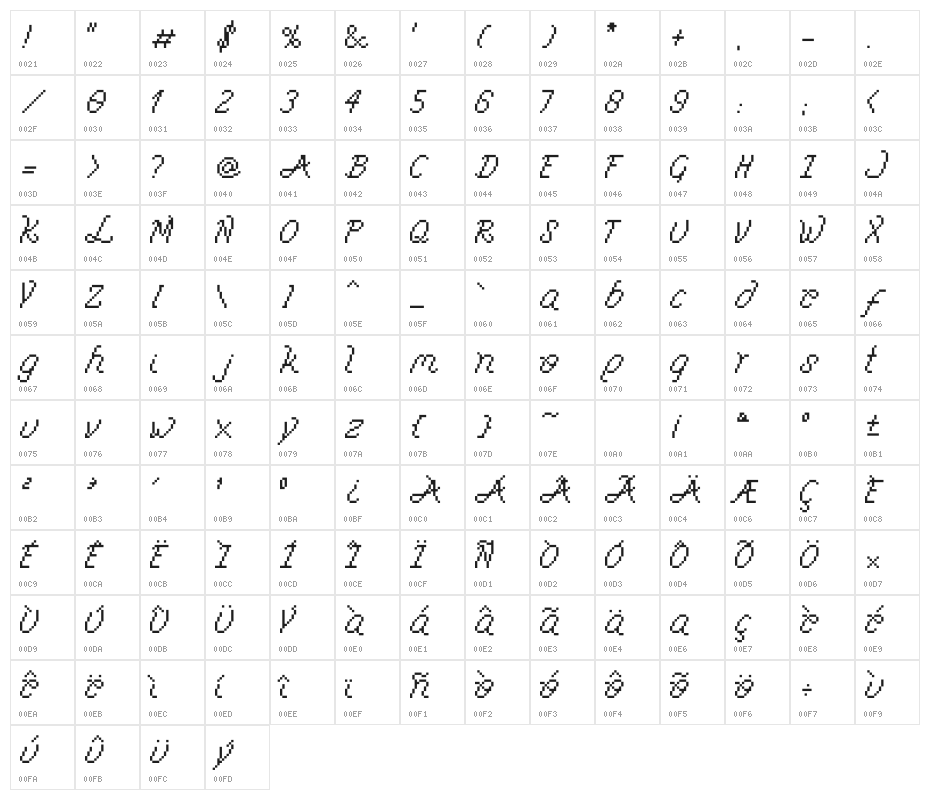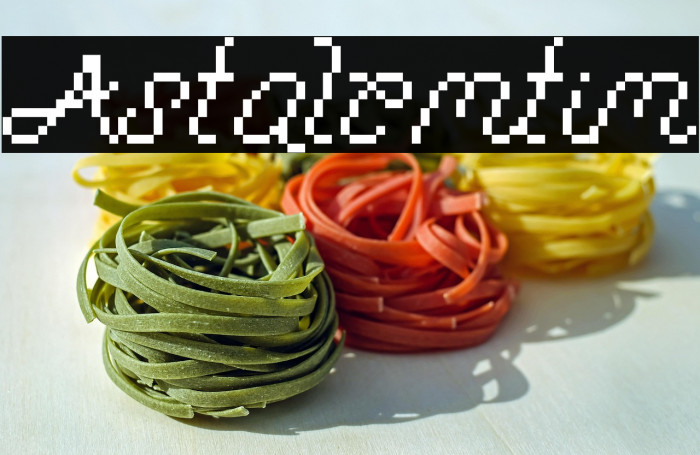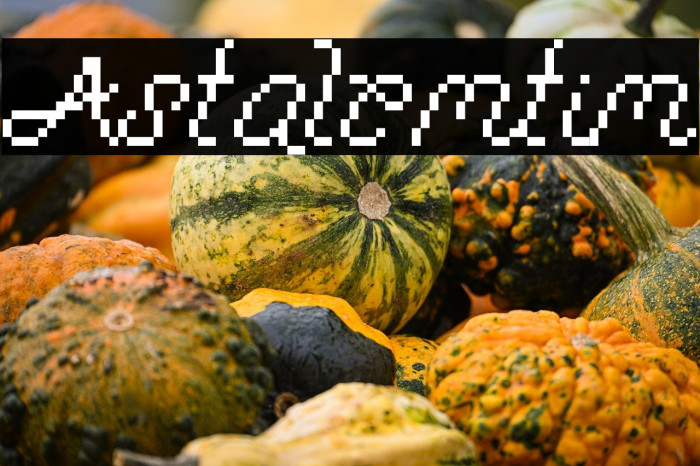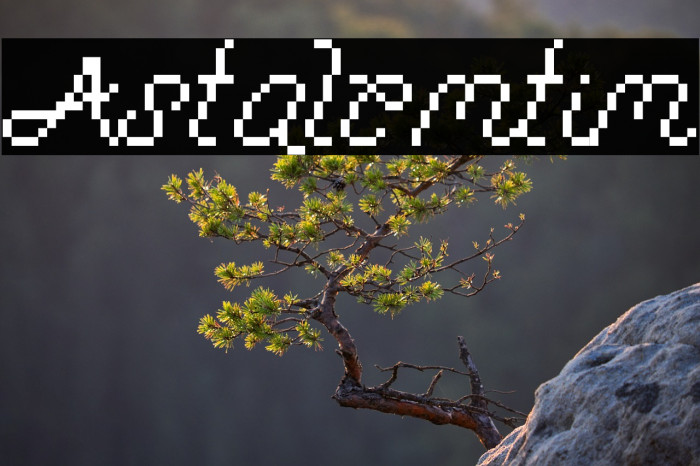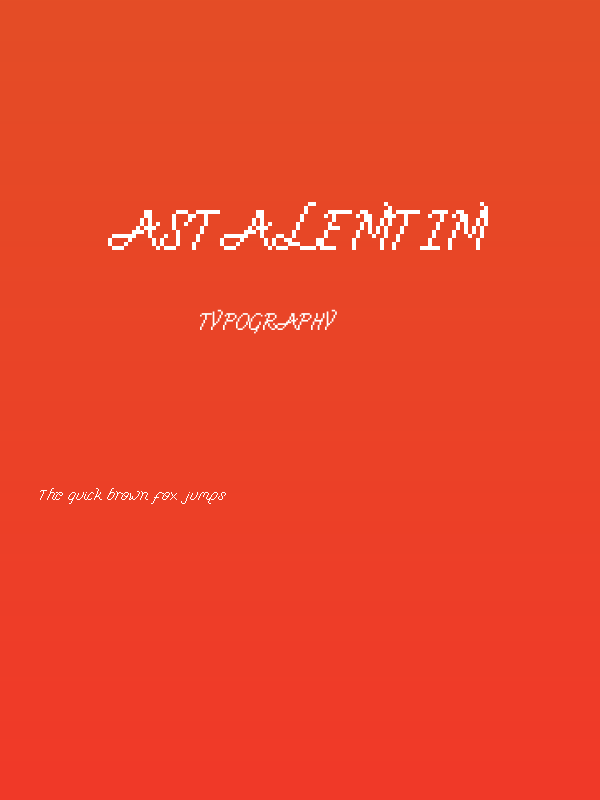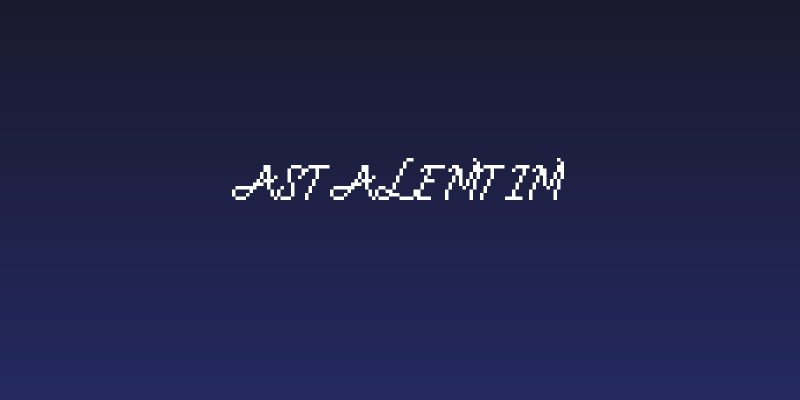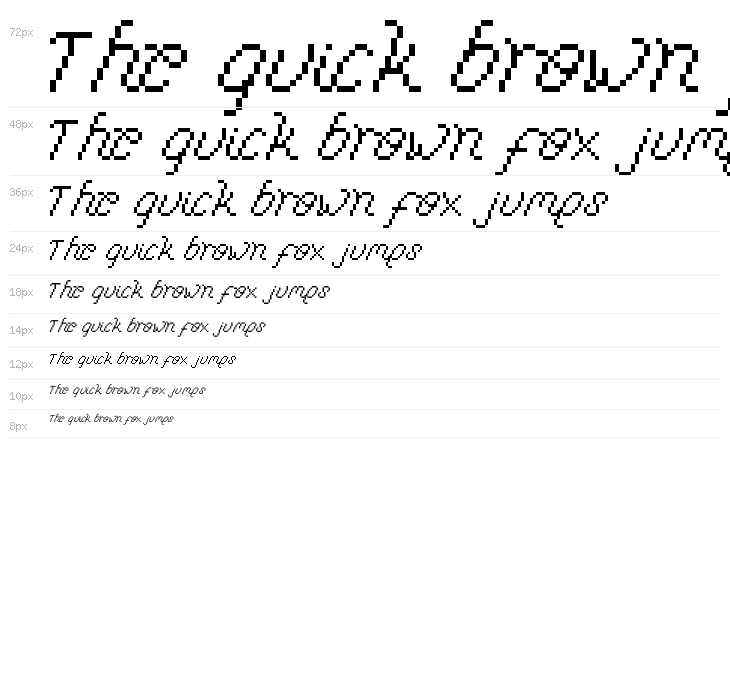
Astalemtim Font
Astalemtim Description
This font features a pixelated, monospaced design reminiscent of early digital displays and retro gaming aesthetics. Each character is formed with a consistent grid-like structure, giving it a blocky and uniform appearance. The uppercase and lowercase letters maintain a cohesive style, with slight variations in height and width to distinguish them. Numbers and special characters follow the same pixelated pattern, ensuring a harmonious look across all glyphs. The font's design is straightforward, with no additional embellishments or flourishes, emphasizing clarity and readability in a digital context.
| Overall Style | Retro, Digital |
| Use Case | Digital displays, Retro games, Tech-themed designs |
| Proposed Projects | Ideal for retro video games, digital art projects, or any design requiring a nostalgic digital aesthetic. |